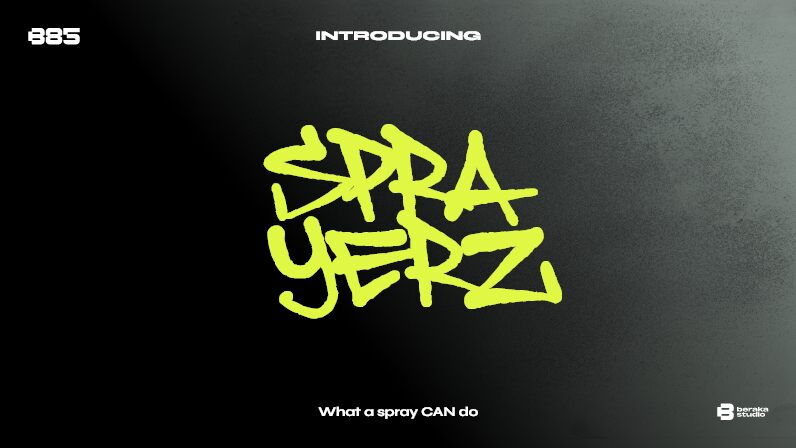
Sprayerz DEMO- B85 Regular
Sprayerz font by B85 is a free graffiti-like font with edgy characters covered in thick drops of excess paint. Letters are bold, large, and embellished with multiple vertical lines inside their styles. The uniformity that connects individual letters indeed makes the typeface look much more outstanding.
Free fonts with such vibes aren’t easy to come around, so be sure to enjoy this one in your advertising design ideas and projects like T-shirts, hoodies, mugs printing. Other perfect use examples include packaging, branding application on apparel items including sneakers or jeans to name a few.